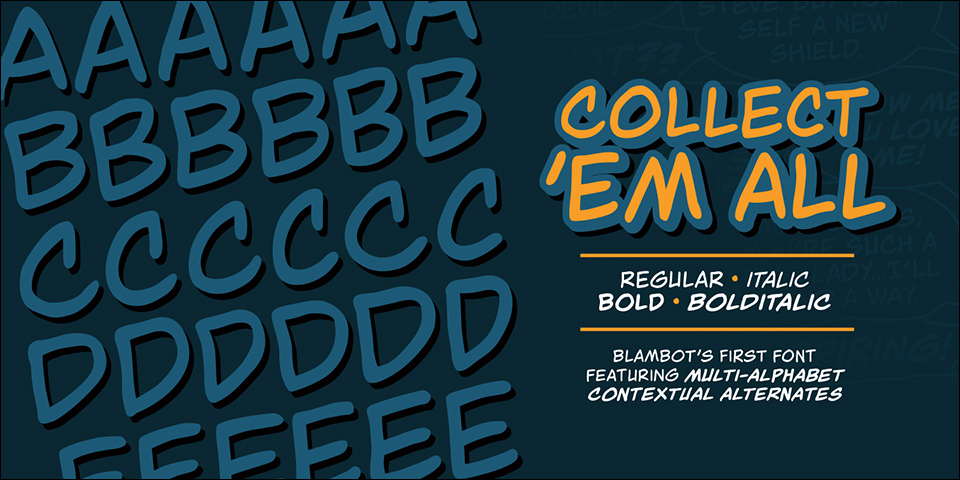
Collect Em All BB
Designed by Nate Piekos, Collect Em All BB is a comic font family. This typeface has four styles and was published by Blambot.
Blambot’s first font featuring Contextual Alternates: COLLECT EM ALL BB! As you type, you’ll discover six versions of every letter, three versions of every number, three versions of the exclamation point and question mark, auto-correction of serif-I per standard American comic book tradition, and if you type from three to six of any letter, you’ll get a bouncy baseline! All this, plus a hefty set of European characters.